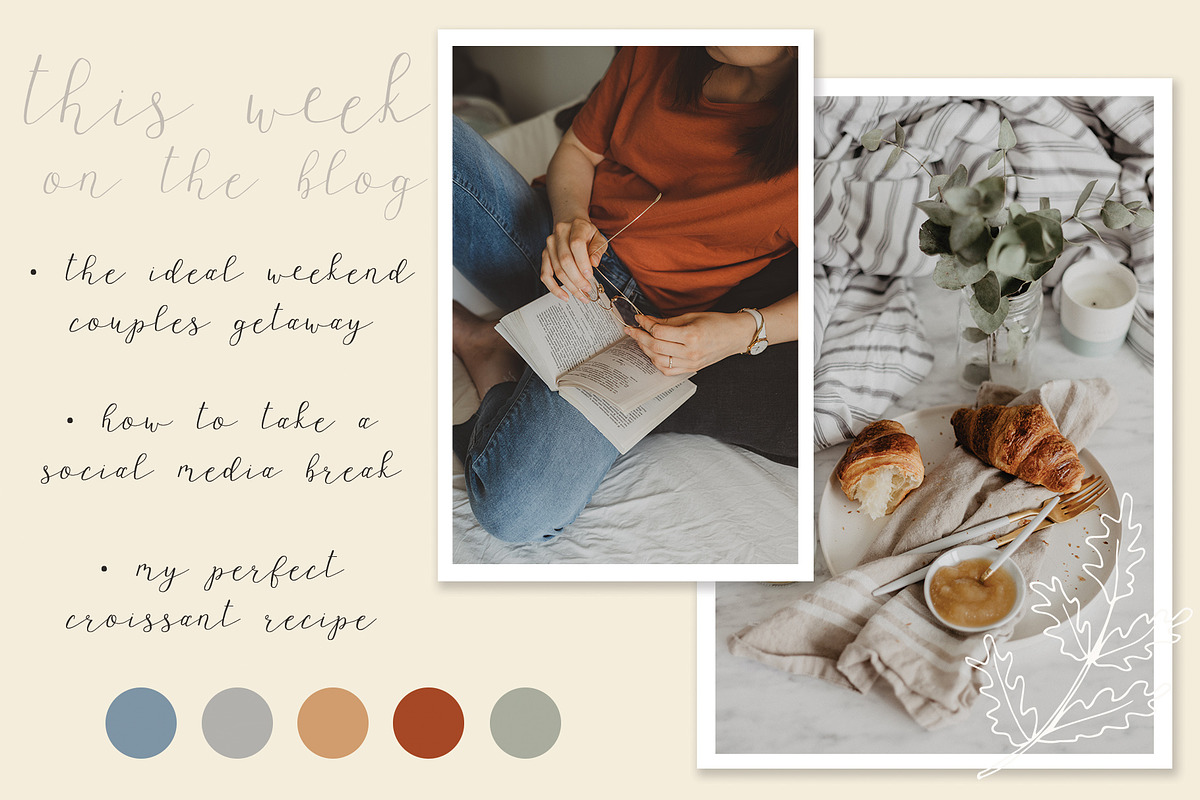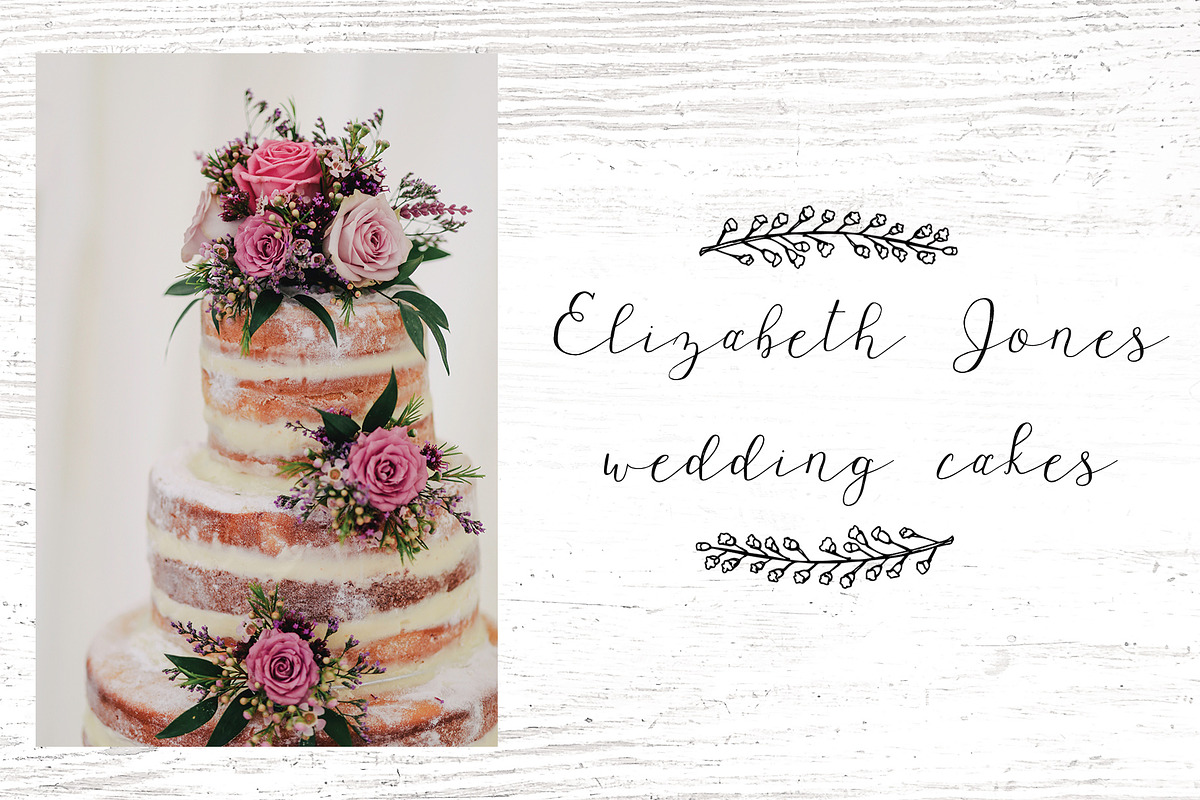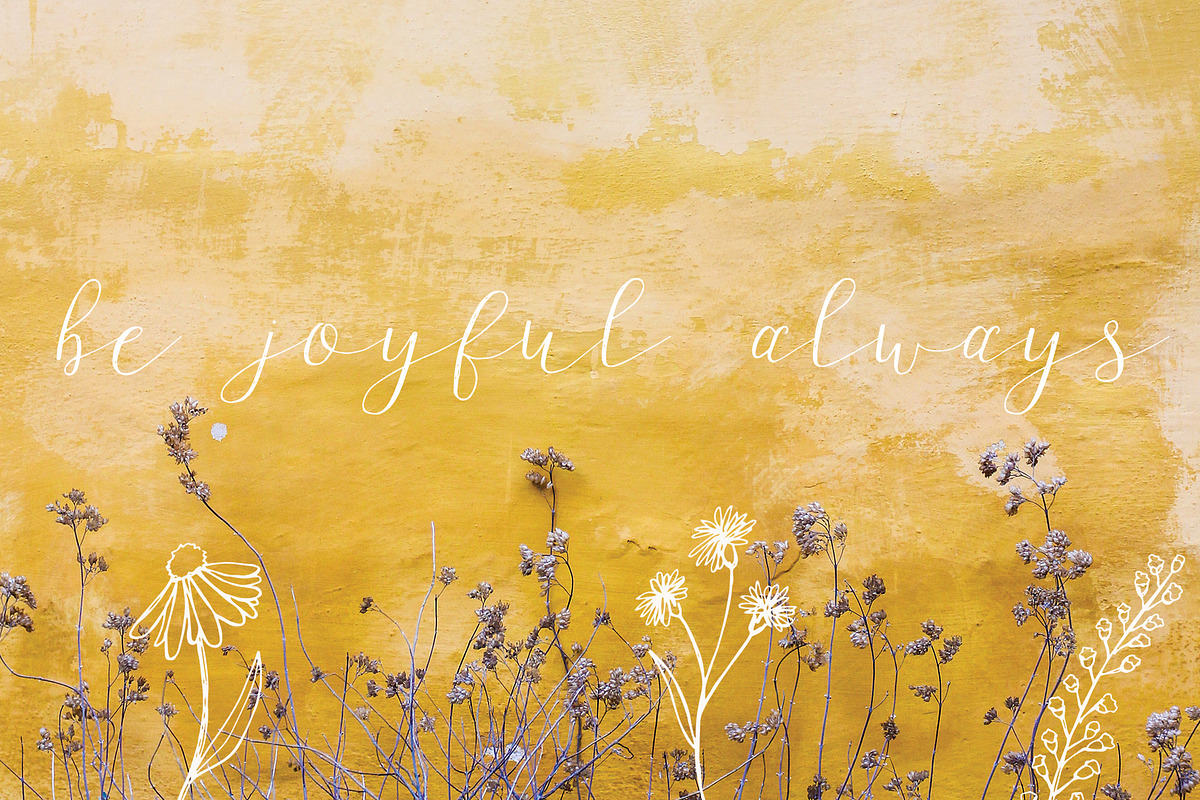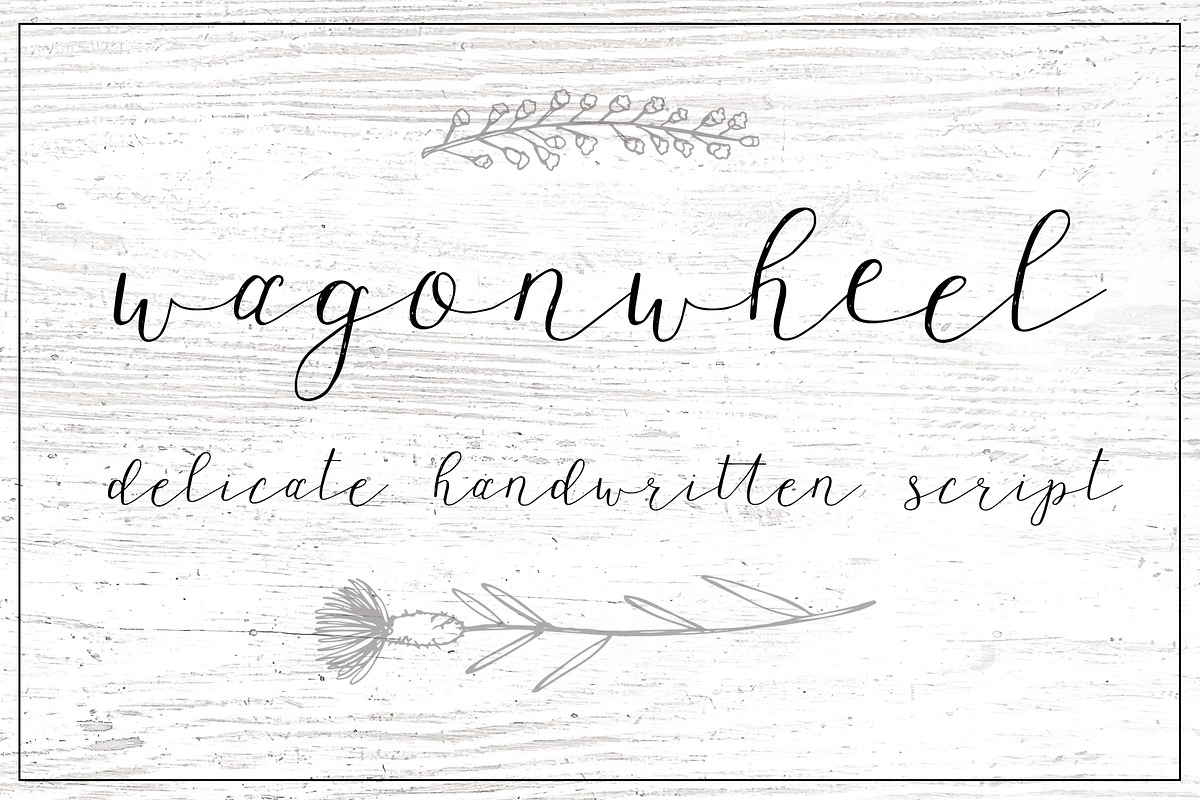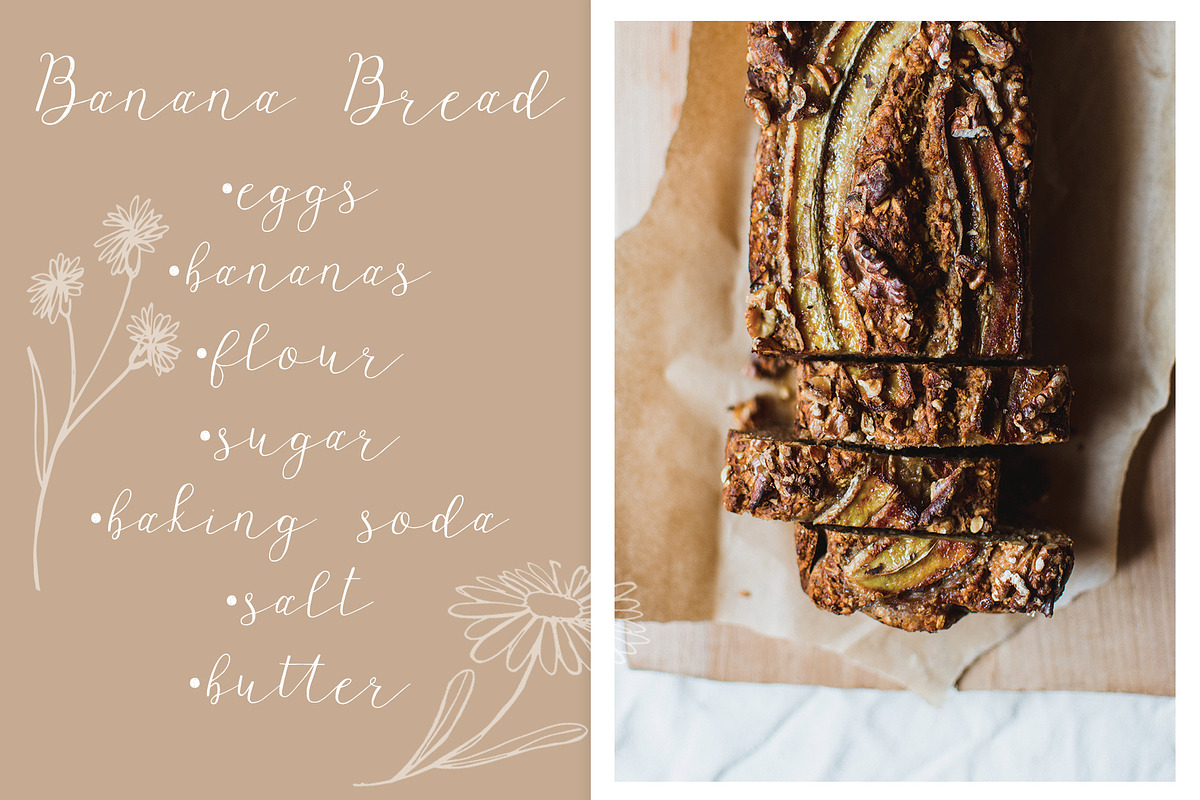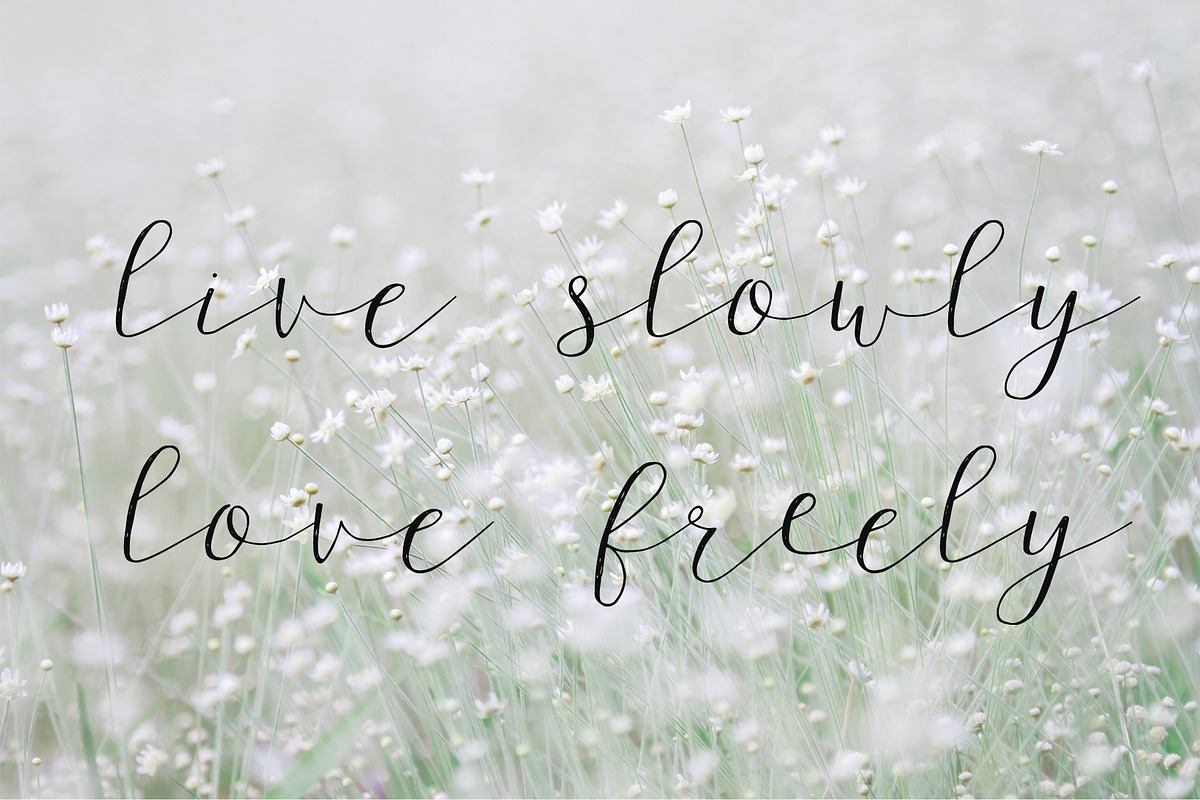
Wagon wheel Script Font
Wagonwheel is a delicate handwritten script that evokes the feeling of sunrise on an easy summer day, the comfort of a cup of tea, and the beauty of wildflowers gently blowing in the wind. I lovingly wrote each character by hand and they retain their slight imperfections and personality.
Wagonwheel will bring sensitive beauty to any of your projects such as blog or social media images, magazines, brochures, web design, logo design, product packaging, and more! It includes discretionary ligatures to maintain a handwritten look. Numbers, symbols, punctuation, and Western European characters are included.
- It includes discretionary ligatures to maintain a handwritten look.
- Numbers, symbols, punctuation, and Western European characters are included.
- As a bonus, Wagonwheel also includes 12 handdrawn floral doodles!